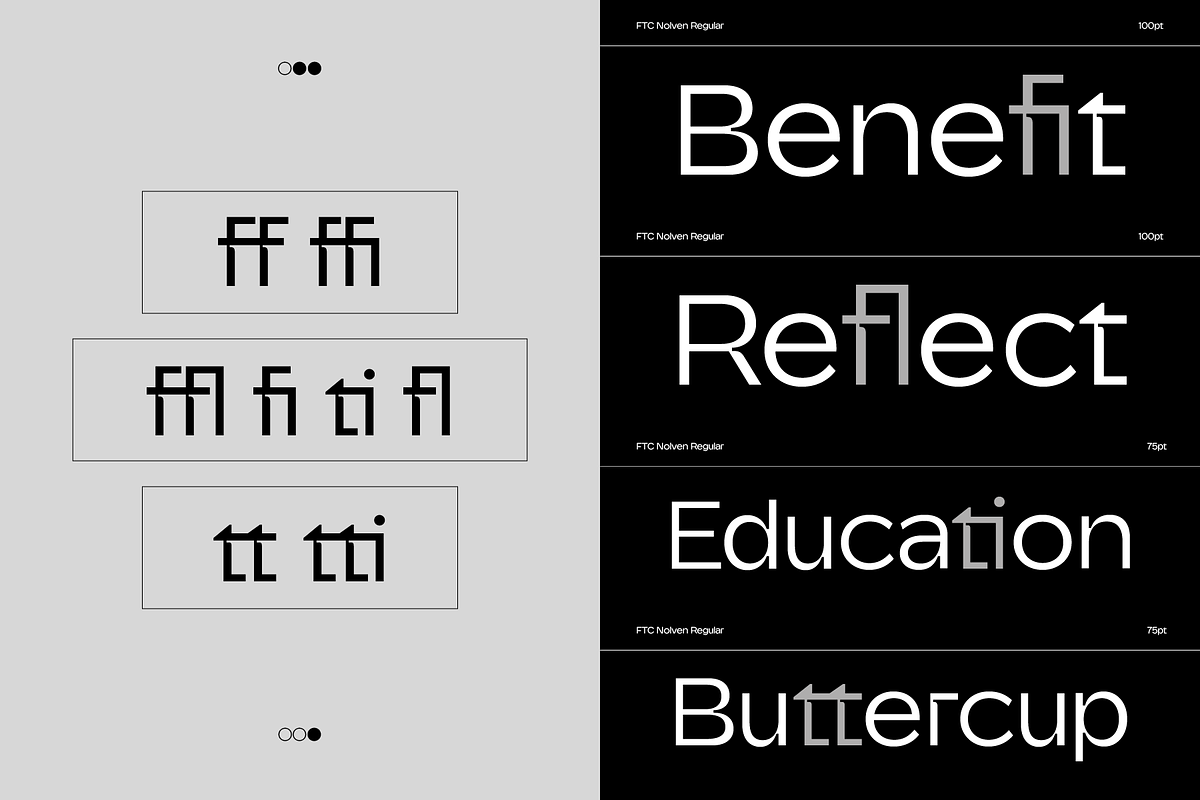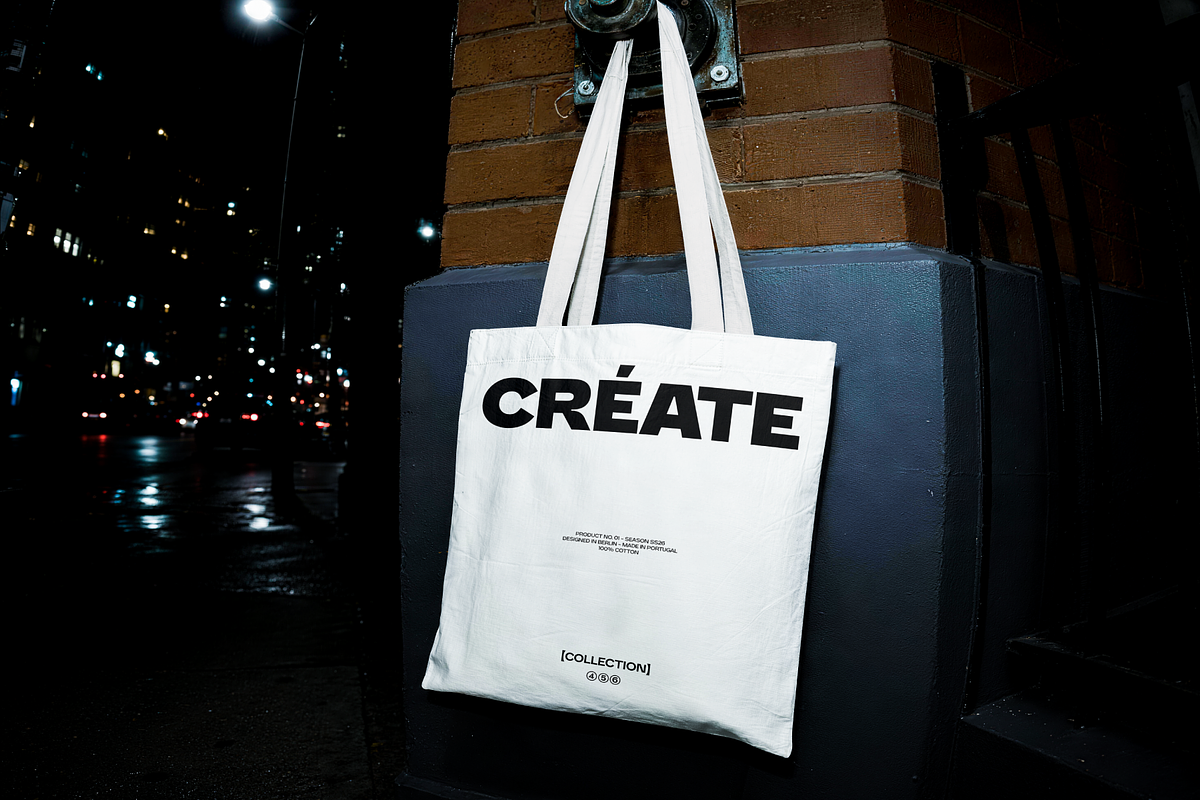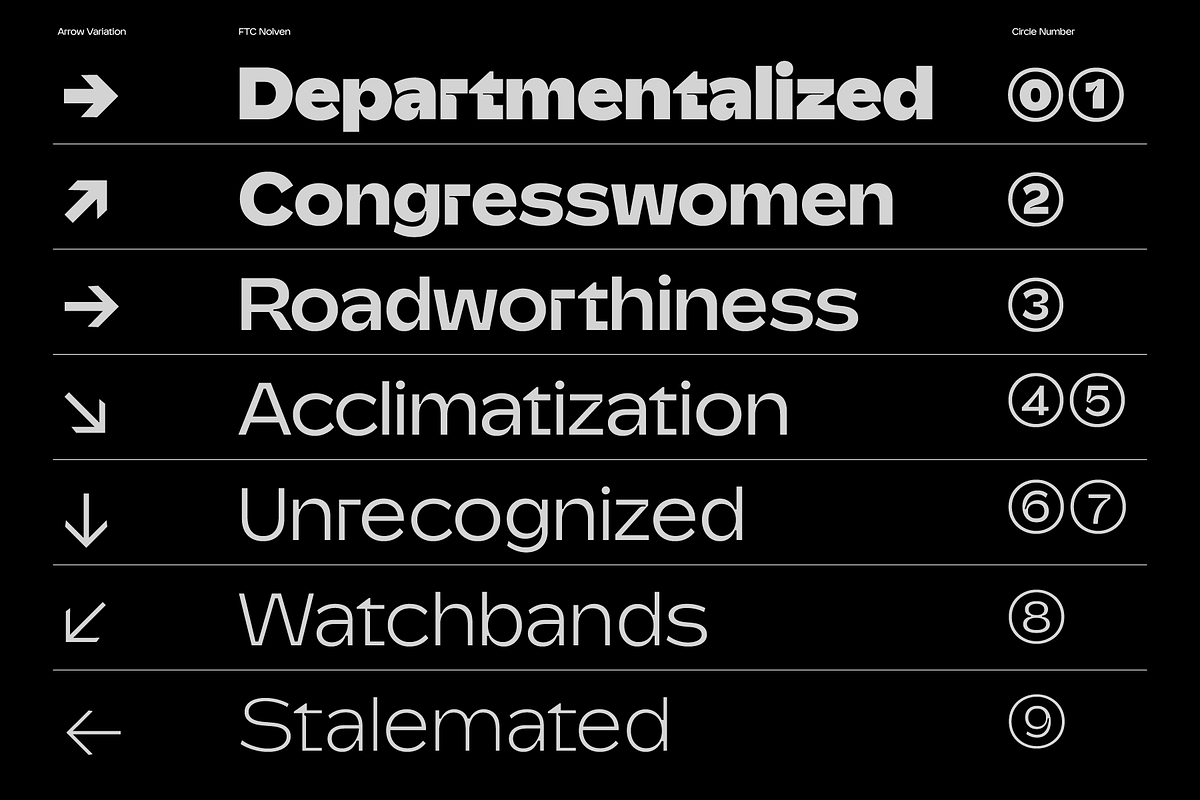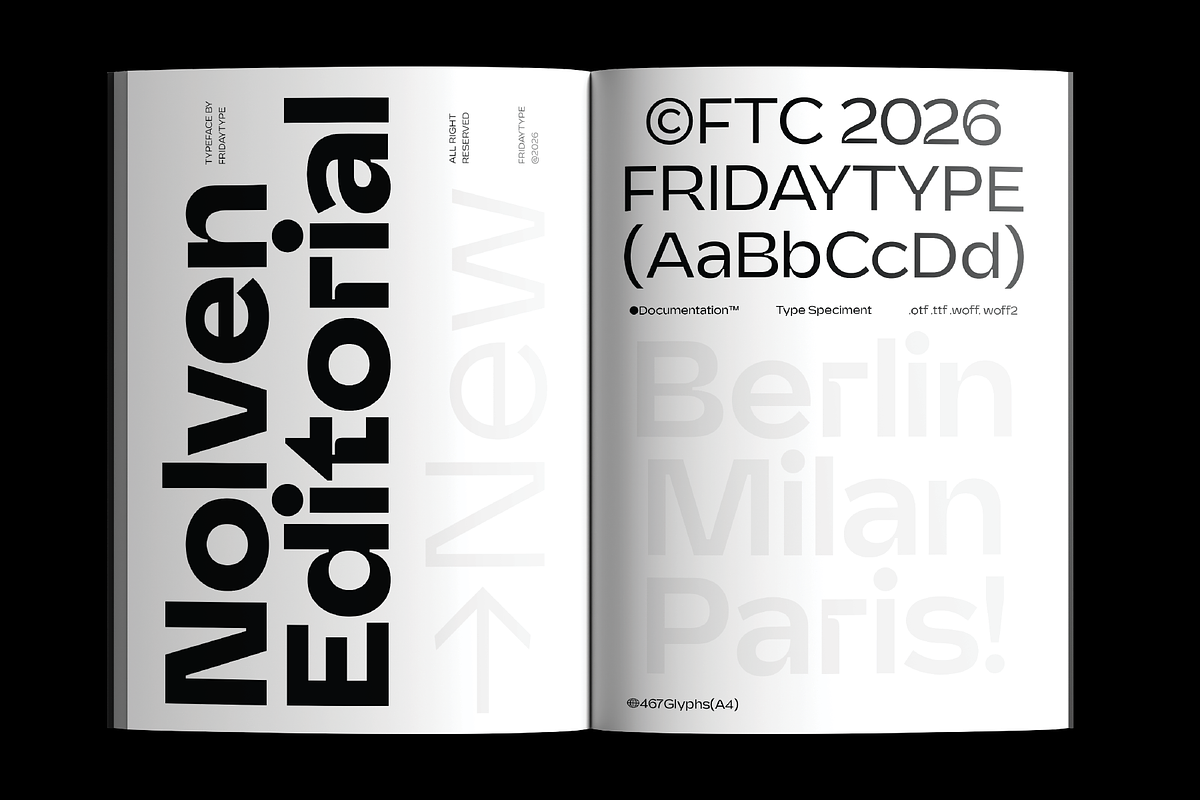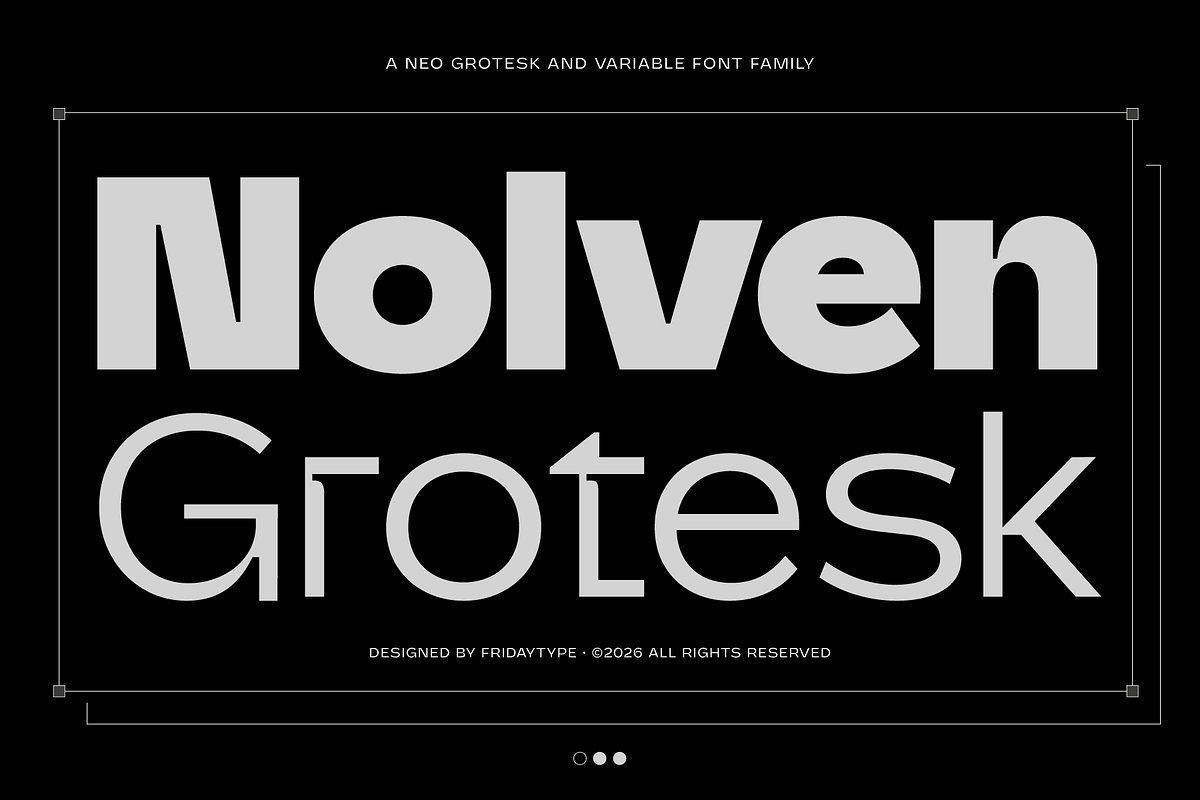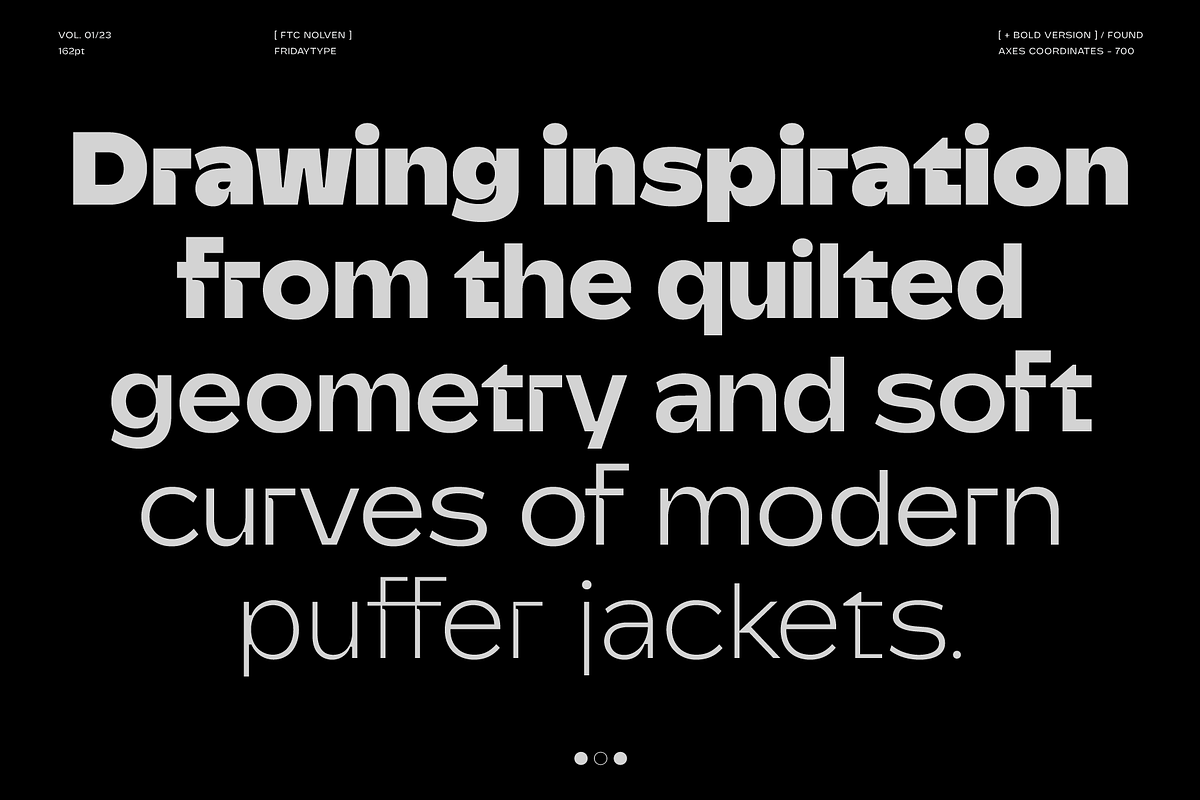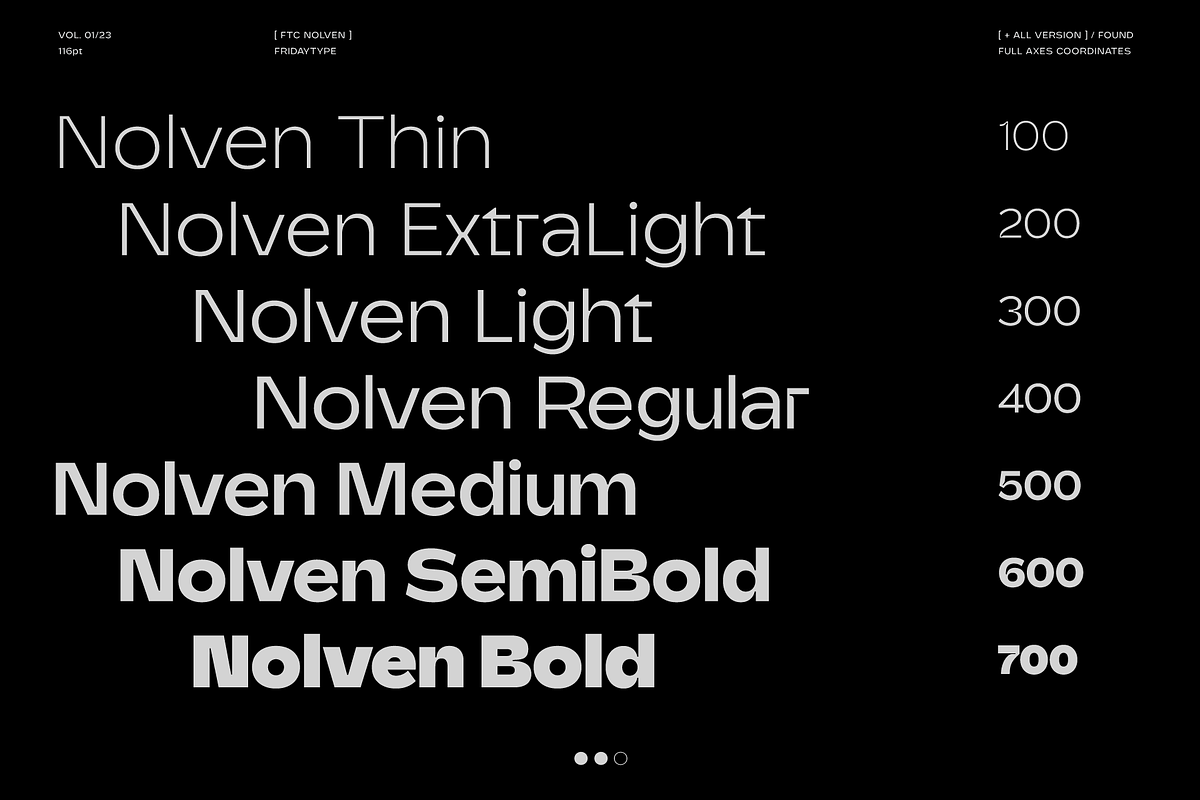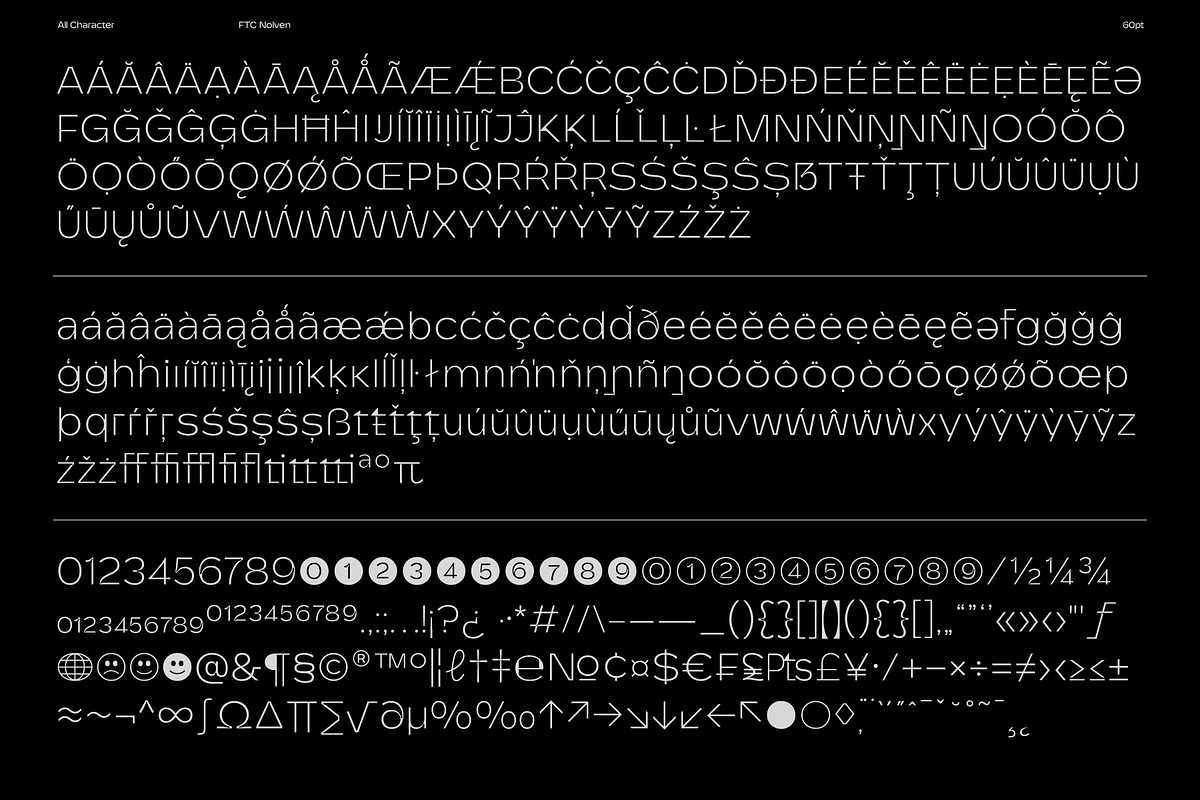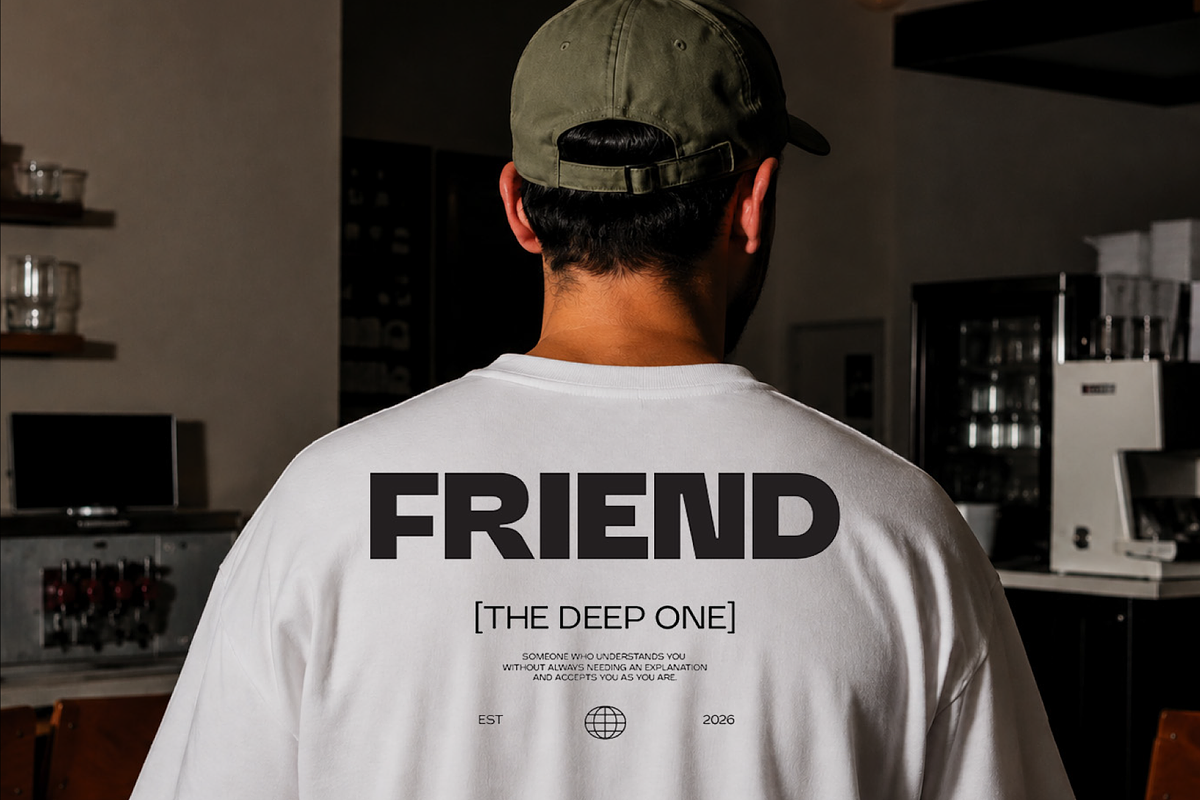
FTC Nolven Grotesk
Nolven is a contemporary grotesk typeface inspired by the functional design and sculpted silhouette of puffer jackets. Built with clean geometry, balanced proportions, and smooth curves, it delivers a modern aesthetic while maintaining exceptional readability across every application.
Designed for versatility, Nolven features seven carefully crafted weights, allowing designers to create confident typographic systems with effortless hierarchy. Whether used for branding, editorial layouts, fashion campaigns, packaging, user interfaces, or signage, Nolven adapts seamlessly from bold statements to refined body text.
Influenced by technical apparel and minimalist industrial design, Nolven combines warmth with precision—creating a typeface that feels contemporary, approachable, and built for everyday creativity. Its clean letterforms and thoughtful details make it equally suitable for expressive visual identities and understated modern layouts.
Seven Weights (Thin, Extra Light, Light, Regular, Medium, Semi Bold & Bold)
Standard & Discretionary Ligatures
OpenType Features